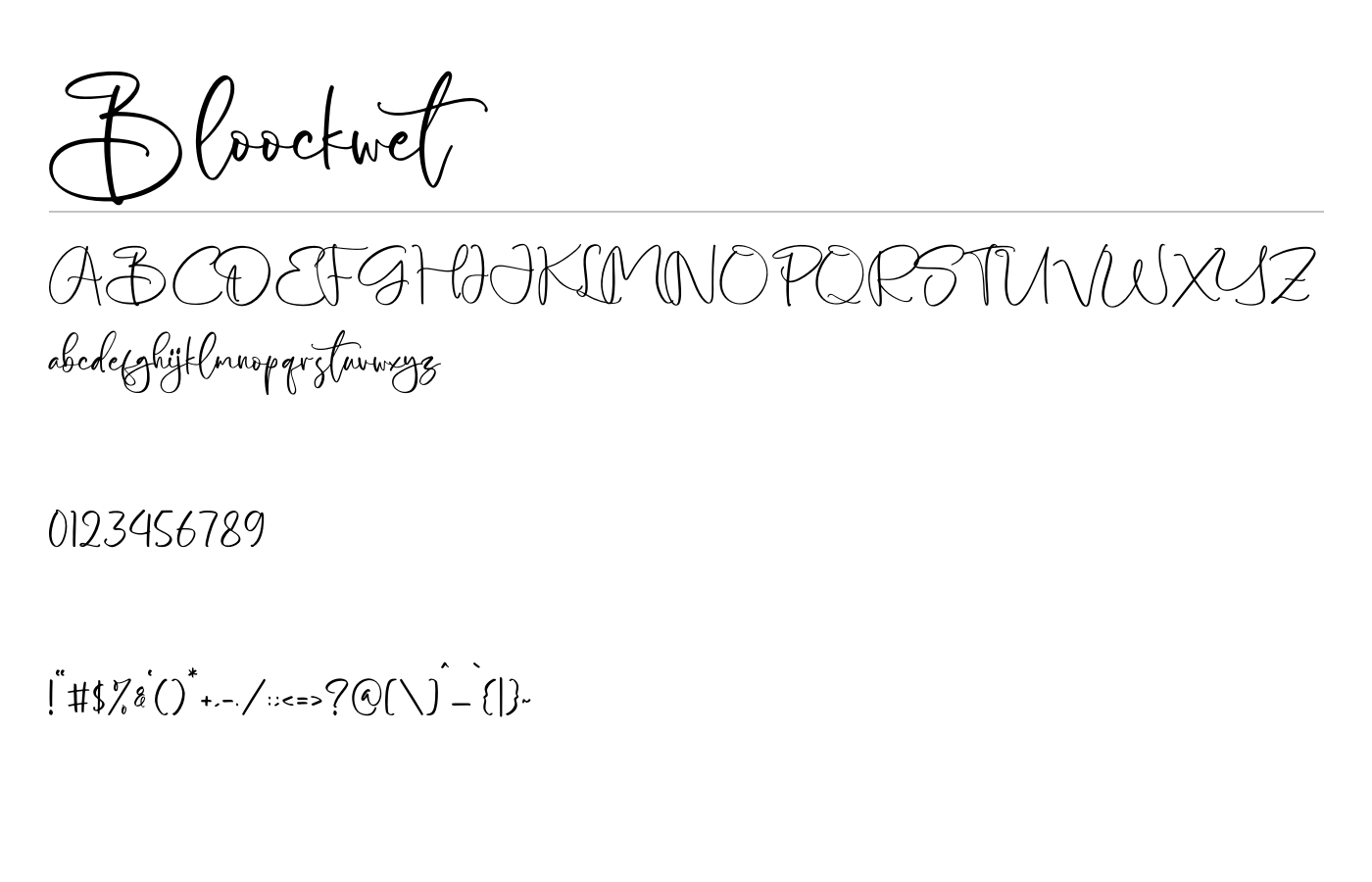
Bloockwet is a slender, playful script font with a delicate, handwritten feel that combines elegance with a casual touch. Its fine, flowing lines and slight loops make it ideal for creative branding, invitations, and feminine design projects where a personal, artistic vibe is desired. This font works well in decorative contexts, adding a unique, stylish flair to headlines and logos.
Bloockwet Font
About Bloockwet Font